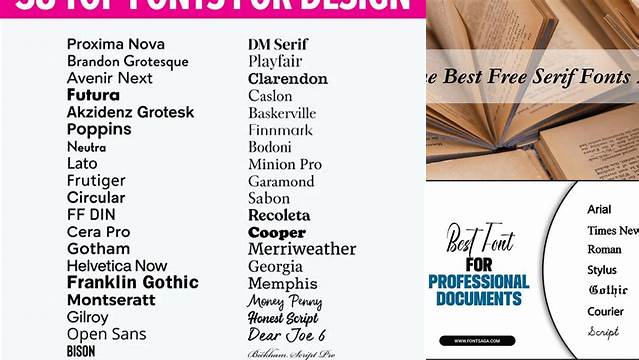
Top Fonts For Edits: Best Typography Choices
Introduction: The Power of Typography in Editing
Hey guys! Ever wondered how much of an impact the right font can have on your edits? Well, let me tell you, it's HUGE! Typography isn't just about making text look pretty; it's about conveying a message, setting a mood, and enhancing the overall visual appeal of your work. Choosing the best fonts can elevate your edits from amateur to professional, making them more engaging and impactful. Think of fonts as the voice of your text – you want it to be clear, compelling, and perfectly suited to your content. So, let's dive into the world of fonts and explore how to make the best choices for your editing projects. We'll cover everything from classic go-to fonts to modern and trendy options, ensuring you're equipped with the knowledge to select the perfect typography for any edit. Remember, a well-chosen font not only makes your text legible but also adds personality and style, helping you connect with your audience on a deeper level. Whether you're working on videos, graphics, websites, or print materials, the right font can make all the difference. Trust me, paying attention to typography is one of the best things you can do to improve your editing skills. So, let’s get started and unlock the secrets to font selection!
Understanding Font Categories: Serif, Sans-Serif, Script, and Display
Okay, before we jump into specific font recommendations, let's get the basics down. Fonts are like families, each with its own distinct characteristics and uses. Understanding the main categories – Serif, Sans-Serif, Script, and Display – is crucial for making informed choices. Serif fonts are those classic typefaces with the little “feet” or strokes at the ends of the letters. Think Times New Roman or Garamond. They’re often perceived as traditional, formal, and authoritative, making them great for body text in books, newspapers, and formal documents. The serifs help guide the reader's eye across the page, improving readability in large blocks of text. However, they can sometimes appear cluttered in digital displays or smaller sizes. Next up, we have Sans-Serif fonts. These are the clean, modern typefaces without the serifs. Arial, Helvetica, and Open Sans are popular examples. Sans-serif fonts are known for their simplicity and legibility, making them ideal for websites, user interfaces, and headings. They offer a contemporary feel and are often associated with minimalism and clarity. They work particularly well on screens, where their clean lines are easily readable. Script fonts are the elegant, flowing typefaces that mimic handwriting. Think of calligraphy or cursive styles. They add a touch of personality and sophistication to designs but should be used sparingly. Script fonts are perfect for invitations, logos, and accent text, but they can be challenging to read in large blocks. It's crucial to choose a script font that’s legible and complements the overall design. Finally, we have Display fonts. These are the quirky, attention-grabbing typefaces designed for headlines and short bursts of text. They come in a wide variety of styles, from bold and geometric to playful and whimsical. Display fonts are all about making a statement, but they should be used judiciously to avoid overwhelming the design. Knowing these categories will help you narrow down your options and choose the best fonts that align with your project's goals and aesthetic.
Top Serif Fonts for Professional Edits
When it comes to achieving a polished and professional look, serif fonts are a fantastic choice. These fonts, with their classic serifs, exude a sense of tradition, authority, and readability. Let’s explore some top serif fonts that can elevate your edits. First on the list is Garamond. This timeless typeface is known for its elegance and readability. It's perfect for body text in books, magazines, and formal documents. Garamond’s refined letterforms and gentle curves make it a joy to read, ensuring your audience stays engaged with your content. Its versatility allows it to work well in both print and digital formats, making it a reliable choice for various projects. Next, we have Times New Roman. While it might be a default font for many, Times New Roman's widespread use speaks to its effectiveness. Its balanced proportions and high readability make it a solid option for large blocks of text. It’s especially useful in academic papers, reports, and formal correspondence where clarity and professionalism are paramount. Georgia is another excellent serif font, specifically designed for on-screen readability. Its larger x-height and clear letterforms make it a fantastic choice for websites and digital publications. Georgia maintains its legibility even at smaller sizes, ensuring your content is easily accessible on all devices. Playfair Display is a more modern serif font that’s perfect for headlines and titles. Its elegant and high-contrast letterforms add a touch of sophistication to any design. Playfair Display works beautifully when paired with a simpler sans-serif font for body text, creating a visually appealing hierarchy. Lastly, Merriweather is a robust and readable serif font that’s designed specifically for on-screen use. Its slightly condensed letterforms and sturdy serifs make it a great choice for websites, blogs, and digital articles. Merriweather’s versatility and excellent readability make it a go-to option for content-heavy projects. By incorporating these top serif fonts into your edits, you can ensure a professional, readable, and visually appealing result. Remember, the best fonts enhance your message and keep your audience engaged.
Best Sans-Serif Fonts for Modern and Clean Designs
If you're aiming for a modern and clean design, sans-serif fonts are your best bet. These fonts are known for their simplicity, legibility, and contemporary feel, making them ideal for a wide range of projects. Let's take a look at some of the best sans-serif fonts that can help you achieve a sleek and polished look. Helvetica is a classic sans-serif font that has stood the test of time. Its clean lines and neutral design make it incredibly versatile, suitable for everything from logos and branding to body text and headlines. Helvetica's simplicity ensures that it doesn't distract from the content, allowing your message to shine through. It's a go-to choice for designers who value clarity and minimalism. Another popular option is Arial. Often considered the workhorse of sans-serif fonts, Arial offers excellent readability and a straightforward design. It's a reliable choice for large blocks of text, especially in digital formats. Arial's widespread availability and familiarity make it a safe and effective choice for ensuring your content is easily accessible. Open Sans is a humanist sans-serif font that’s designed for on-screen readability. Its open forms and neutral-yet-friendly appearance make it a great choice for websites, apps, and user interfaces. Open Sans is highly legible at various sizes, ensuring a comfortable reading experience for your audience. For a font that strikes a balance between modern and approachable, Lato is an excellent choice. Its semi-rounded details give it a warm feel, while its sturdy structure ensures clarity and readability. Lato works well in both headlines and body text, making it a versatile option for various design needs. Lastly, Roboto is a modern sans-serif font that’s widely used in the Android operating system. Its geometric forms and clean lines make it a strong choice for digital platforms. Roboto’s excellent readability and contemporary aesthetic make it a popular option for web design, app interfaces, and branding materials. Incorporating these top sans-serif fonts into your edits will help you create designs that are not only visually appealing but also highly legible and engaging. Remember, the best fonts for a modern design are those that prioritize clarity and simplicity.
Elegant Script Fonts to Add a Touch of Personality
For those moments when you want to infuse your edits with elegance and personality, script fonts are the way to go. These fonts mimic the fluidity of handwriting, adding a touch of sophistication and charm to any design. However, it’s crucial to use script fonts sparingly and thoughtfully, as they can be less legible in large blocks of text. Let's explore some of the best script fonts that can bring a unique flair to your projects. Brush Script MT is a classic script font that exudes a casual yet elegant vibe. Its flowing strokes and handwritten feel make it perfect for invitations, cards, and designs that need a personal touch. Brush Script MT’s familiarity and timeless appeal ensure that it remains a popular choice for various applications. Pacifico is a script font that’s both playful and stylish. Its rounded forms and flowing connections give it a friendly and approachable feel. Pacifico is ideal for logos, headings, and designs that aim to convey a sense of fun and creativity. Great Vibes is an elegant script font that’s perfect for formal occasions. Its refined letterforms and graceful flourishes make it a stunning choice for wedding invitations, certificates, and other sophisticated designs. Great Vibes adds a touch of luxury and class to any project. Dancing Script is a modern script font that’s full of personality. Its bouncing baseline and playful letterforms make it a great choice for designs that need a lighthearted touch. Dancing Script is perfect for headings, quotes, and social media graphics. Lobster is a bold script font that makes a statement. Its strong strokes and distinctive letterforms give it a vintage yet contemporary feel. Lobster works well for logos, posters, and designs that need to grab attention. When using script fonts, it’s essential to pair them with simpler fonts for body text to ensure readability. For example, pairing a script font with a clean sans-serif font can create a balanced and visually appealing design. Remember, the best script fonts are those that enhance your message without sacrificing legibility. Use them thoughtfully to add a touch of personality and elegance to your edits.
Unique Display Fonts for Eye-Catching Headlines
When you need to make a bold statement and capture attention, display fonts are your secret weapon. These fonts are designed to be eye-catching and memorable, making them perfect for headlines, logos, and short bursts of text. Unlike body text fonts, display fonts prioritize visual impact over readability in large blocks. Let’s dive into some unique display fonts that can help your designs stand out. Bebas Neue is a popular sans-serif display font known for its clean, tall, and condensed letterforms. Its modern and geometric appearance makes it a great choice for headlines, posters, and branding materials. Bebas Neue is versatile and works well in a variety of design contexts. Oswald is another excellent sans-serif display font that’s designed for digital use. Its slightly condensed letterforms and robust structure make it highly legible on screens. Oswald is perfect for website headings, banners, and digital advertisements. Montserrat is a geometric sans-serif font that exudes a sense of modernity and sophistication. Its clean lines and balanced proportions make it a versatile choice for various design applications. Montserrat works well in both headlines and body text, making it a reliable option for a cohesive design. Playfair Display (which we mentioned earlier as a serif) can also function beautifully as a display font. Its elegant and high-contrast letterforms add a touch of sophistication to headlines and titles. Playfair Display is particularly effective when paired with a simpler sans-serif font for body text. ChunkFive is a bold slab-serif font that commands attention. Its strong, blocky letterforms make it perfect for posters, logos, and designs that need a vintage or retro feel. ChunkFive’s assertive presence ensures that your message is heard loud and clear. When choosing display fonts, it’s important to consider the overall tone and message of your design. A playful font might be perfect for a children’s book, while a more serious font would be better suited for a corporate presentation. Remember, the best display fonts are those that capture attention and reinforce your message effectively. Use them creatively to make your headlines unforgettable.
How to Choose the Right Font for Your Project: Tips and Tricks
Choosing the right font for your project can feel like navigating a maze, but don’t worry, I’ve got your back! Here are some tips and tricks to help you make the best font choices and elevate your designs. First, understand your project’s goals and audience. What message are you trying to convey? Who are you trying to reach? A formal report calls for different fonts than a fun social media graphic. Consider the tone and style of your project, and choose fonts that align with it. Next, consider the context. Where will your design be viewed? A font that looks great in print might not work well on a screen, and vice versa. Think about the size of the text, the viewing distance, and the medium (e.g., website, poster, video). Legibility is key. No matter how beautiful a font is, it’s useless if people can’t read it. Choose fonts that are clear and easy to read, especially for body text. Avoid overly decorative or intricate fonts for large blocks of text, as they can strain the reader’s eyes. Create a hierarchy. Use different fonts for headings and body text to create visual interest and guide the reader’s eye. A common practice is to pair a display font for headings with a simpler serif or sans-serif font for body text. This helps to create a clear and organized layout. Limit your font choices. Using too many fonts in a single design can look cluttered and unprofessional. Stick to a maximum of two or three fonts, and make sure they complement each other. A good rule of thumb is to choose one font for headings and another for body text. Test your fonts. Before finalizing your design, test your fonts in different sizes and contexts. Print out a sample or view your design on various devices to ensure that your fonts look good and are legible. Consider font pairings. Some fonts naturally pair well together, while others clash. Experiment with different combinations to find the best pairings for your project. Online resources and font pairing tools can be a great help in this process. Finally, don’t be afraid to experiment, but always prioritize clarity and readability. Choosing the right fonts is a skill that improves with practice, so keep exploring and refining your eye for typography. By following these tips, you'll be well on your way to selecting the best fonts for your projects and creating visually stunning and effective designs.
Free Font Resources: Where to Find High-Quality Fonts
Alright, so you're armed with the knowledge of what makes a great font, but where do you actually find these typographic treasures? Don't worry, I've got you covered with a list of fantastic free font resources that offer a plethora of high-quality fonts for your editing projects. Let's dive in! First up is Google Fonts. This is a goldmine of free, open-source fonts that are incredibly easy to use. Google Fonts boasts a vast library of fonts, ranging from classic serif and sans-serif fonts to more unique display and script fonts. The best part? They're all optimized for the web, meaning they load quickly and look great on any device. Plus, you can easily embed them into your website or use them in your design software. DaFont is another popular resource with a huge collection of free fonts. It's a bit more eclectic than Google Fonts, with a wide variety of styles and themes. You can find everything from vintage-inspired fonts to futuristic designs. Just be sure to check the license for each font, as some are free for personal use only. Font Squirrel is a fantastic resource for finding high-quality, commercial-use fonts that are also free. They carefully curate their selection to ensure that every font meets their standards. Font Squirrel is a great option if you need fonts for a professional project and want to avoid any licensing issues. Adobe Fonts (formerly Typekit) is a subscription-based service that's included with many Adobe Creative Cloud plans. It offers a massive library of professional-quality fonts from some of the world's leading type foundries. While it's not technically free, it's a great value if you're already an Adobe user. Creative Market offers a mix of free and paid fonts, along with other design resources. They often have free font bundles and weekly freebies, so it's worth checking regularly. Creative Market is a great place to discover unique and stylish fonts that you won't find anywhere else. When downloading fonts from free resources, always double-check the license to ensure you're using them correctly. Some fonts are free for personal use but require a license for commercial projects. By utilizing these free font resources, you can expand your typographic toolkit without breaking the bank. Remember, the best fonts are those that enhance your designs and help you communicate your message effectively. Happy font hunting!
Conclusion: Mastering Font Selection for Exceptional Edits
So, there you have it, guys! We’ve journeyed through the wonderful world of fonts, exploring everything from the basics of font categories to the best free resources for finding your next favorite typeface. By now, you should feel much more confident in your ability to choose the right fonts for your editing projects. Remember, mastering font selection is a crucial skill for any editor or designer. It's not just about making your text look pretty; it's about conveying a message, setting a tone, and enhancing the overall impact of your work. The best fonts are those that align with your project's goals, resonate with your audience, and contribute to a cohesive and visually appealing design. We’ve covered a range of font categories, including serif, sans-serif, script, and display fonts, each with its own unique characteristics and applications. Serif fonts bring a sense of tradition and readability, perfect for formal documents and body text. Sans-serif fonts offer a modern and clean aesthetic, ideal for websites and digital interfaces. Script fonts add a touch of elegance and personality, great for invitations and accent text. Display fonts make bold statements, perfect for headlines and attention-grabbing elements. We’ve also discussed practical tips and tricks for choosing the best fonts, such as understanding your project’s goals, considering the context, prioritizing legibility, and creating a visual hierarchy. Remember to limit your font choices, test your fonts, and explore font pairings to achieve a harmonious design. And let’s not forget the fantastic free font resources available, like Google Fonts, DaFont, Font Squirrel, Adobe Fonts, and Creative Market. These platforms offer a wealth of high-quality fonts that can elevate your projects without breaking the bank. Ultimately, the best font selection comes down to practice and experimentation. Don’t be afraid to try new things, explore different combinations, and develop your eye for typography. With the knowledge and resources you’ve gained, you’re well-equipped to create exceptional edits that stand out and captivate your audience. So go forth, choose wisely, and let your typography shine!